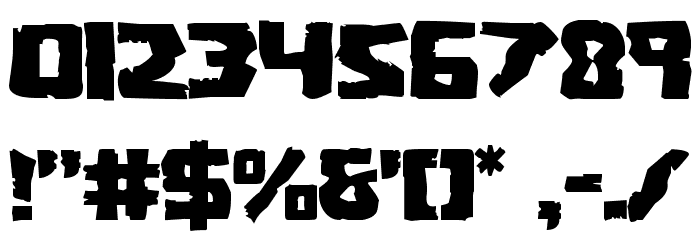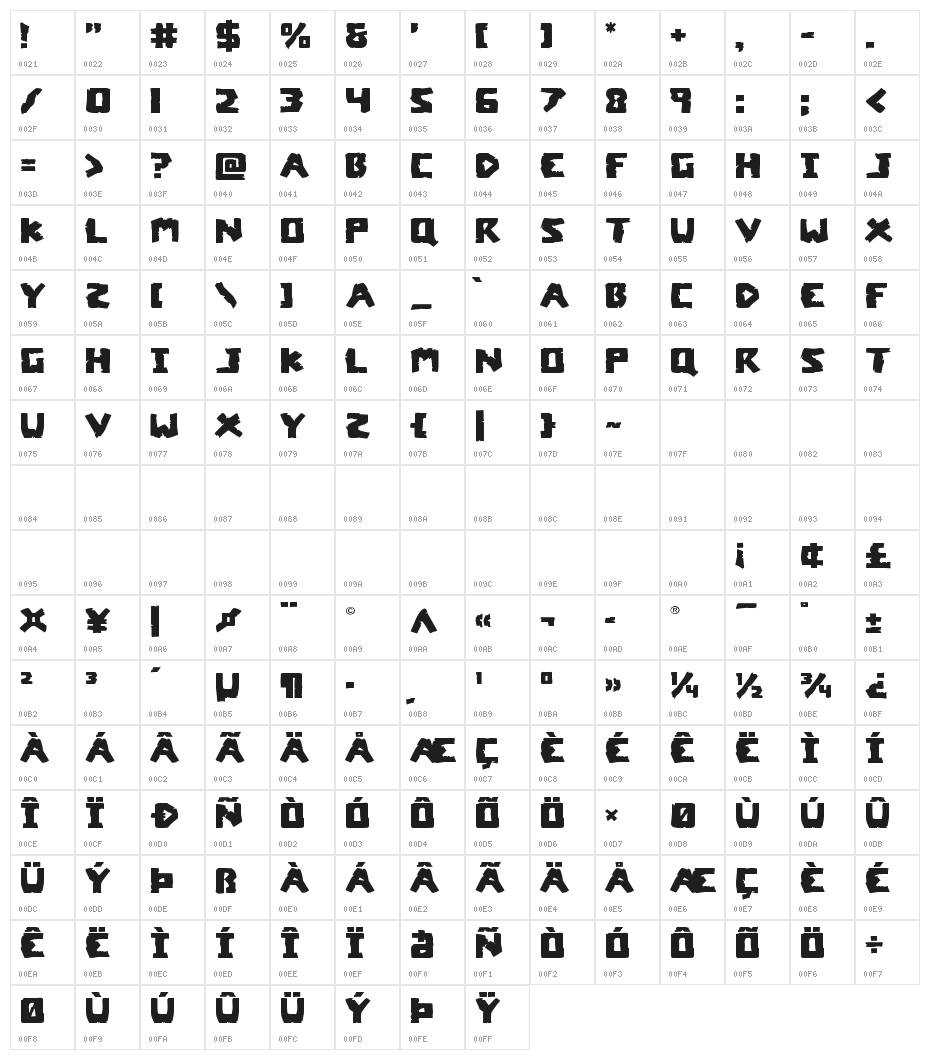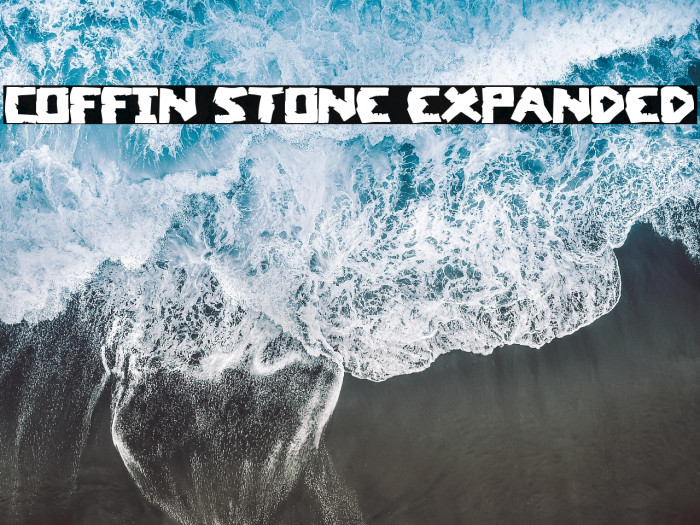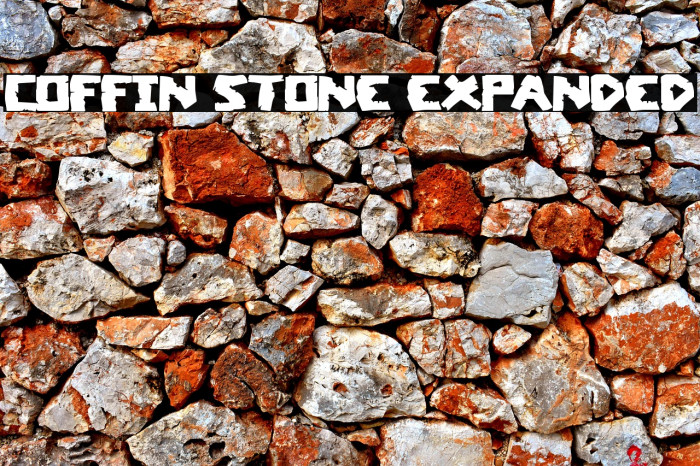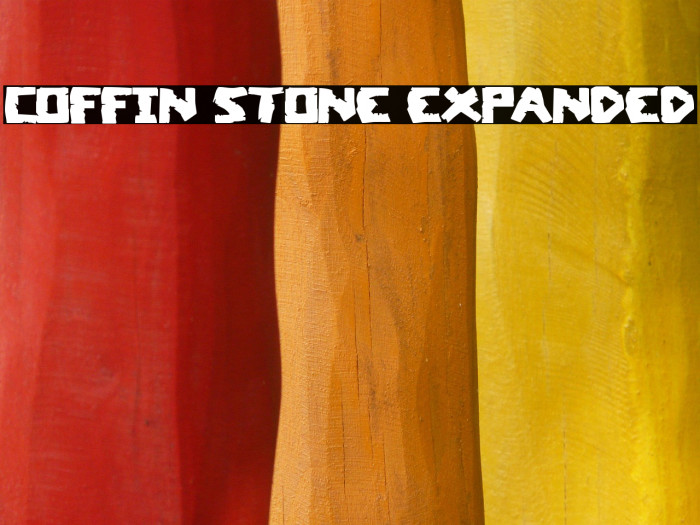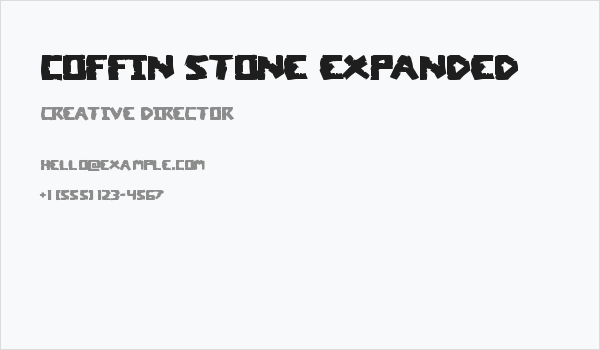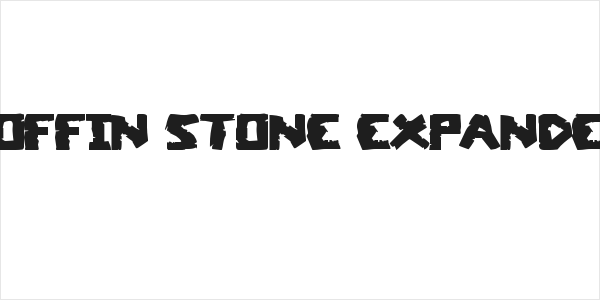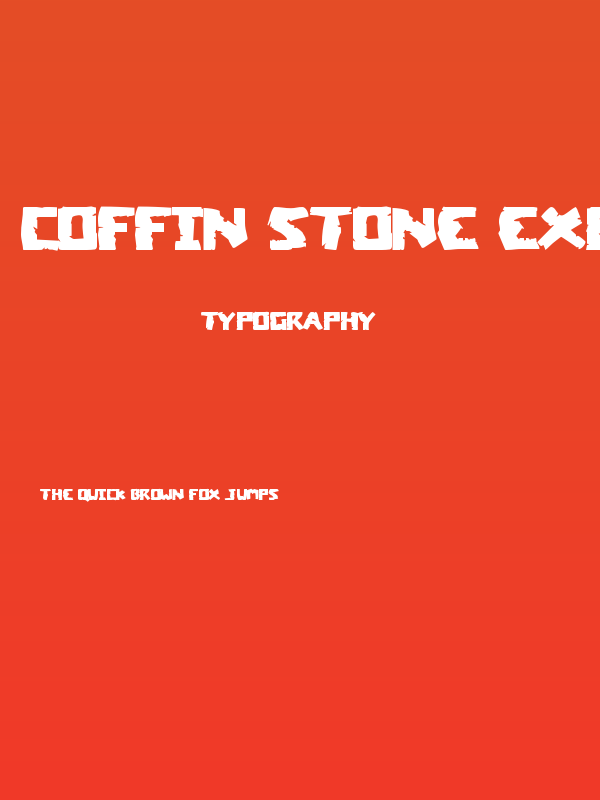
Coffin Stone Expanded Font
Coffin Stone Expanded Description
This font features a bold and rugged design with a distressed, stone-like texture. The characters are heavily stylized, giving them a rough and edgy appearance. Each letter is uniquely shaped, with uneven edges and a hand-chiseled look, reminiscent of ancient inscriptions. The font's expanded width adds to its dramatic presence, making it ideal for attention-grabbing headlines or artistic projects. The numbers and special characters maintain the same rugged aesthetic, ensuring consistency across all text elements.
| Proposed Projects | Ideal for horror-themed posters, rock band logos, video game titles, or any project needing a bold, edgy look. |